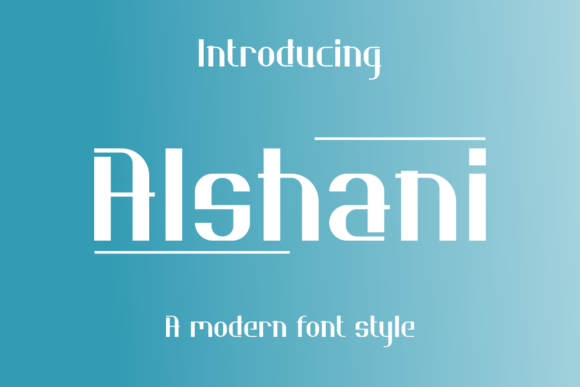
The Alshani Font: A Modern Sans Serif Marvel for Your Design Projects
My Honest Review of Alshani Font
- ✨ Modern and clean design: Alshani Font is a stunning sans serif font that’s perfect for modern designs.
- ✅ Highly versatile: It works beautifully for logos, t-shirt printing, esports, and many more applications.
- 💡 Excellent legibility: The font is clear and easy to read, even at small sizes.
- 🎨 Great for creative projects: Alshani Font adds a touch of sophistication and style to any design.
While Alshani Font is an excellent choice, there are a few things to keep in mind:
- 🤔 Limited language support: Alshani Font may not support all languages, so be sure to check the character set before using it.
- ⚠️ Not ideal for body text: While it’s legible, Alshani Font is better suited for headings and titles rather than long blocks of text.
A Practical Guide to Using Alshani Font
The Story Behind Alshani Font
Alshani Font was designed with the modern designer in mind. Its creator, a talented typographer, wanted to craft a font that was both clean and stylish. The result is a font that’s perfect for a wide range of applications, from branding and logos to t-shirts and esports.
Q: What is Alshani Font?
A: Alshani Font is a modern sans serif font designed for a wide range of applications, including branding, logos, and more.
Q: What languages does Alshani Font support?
A: Alshani Font may have limited language support. Be sure to check the character set before using it.